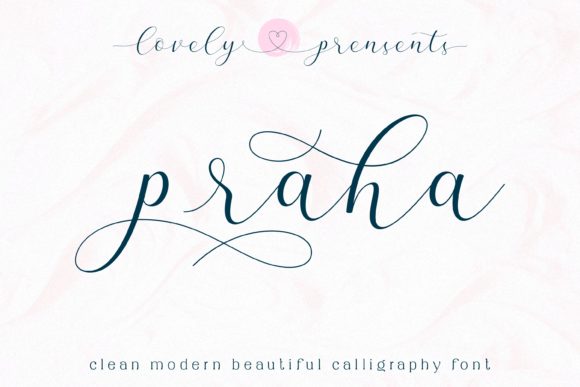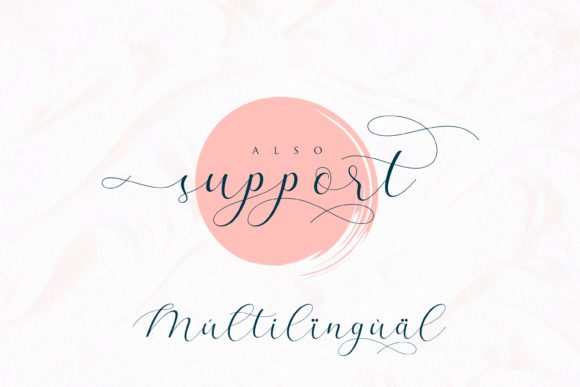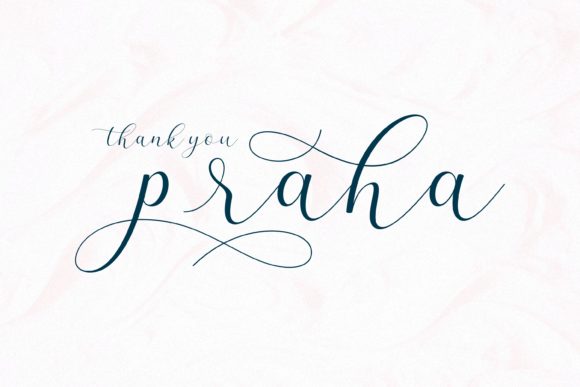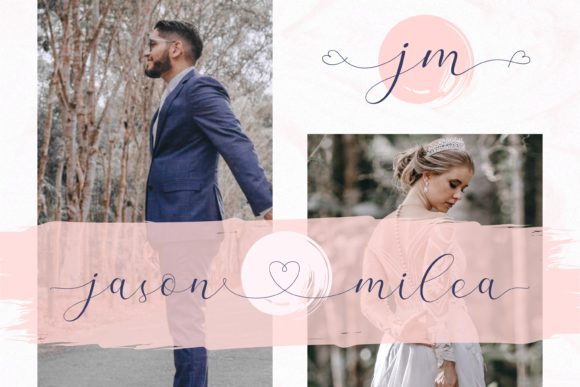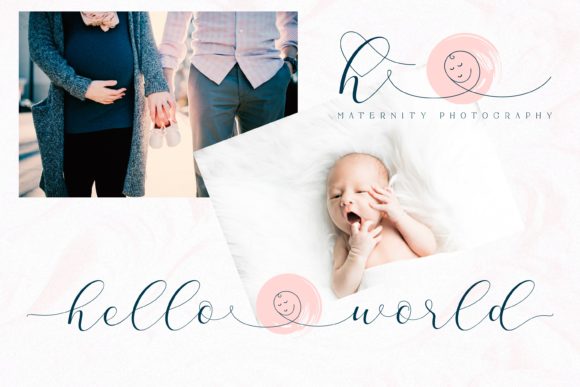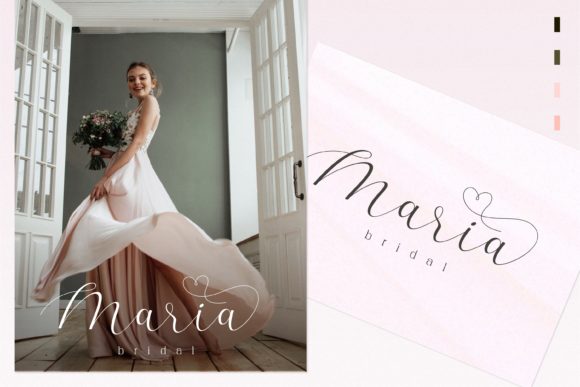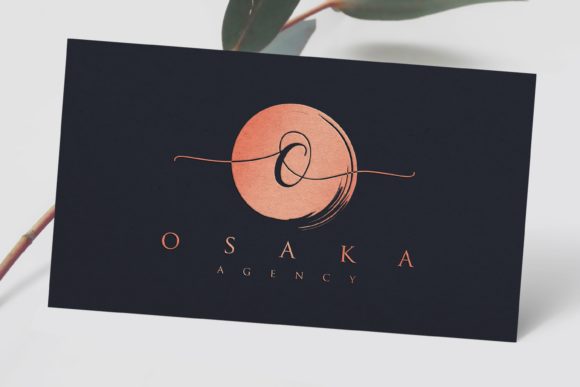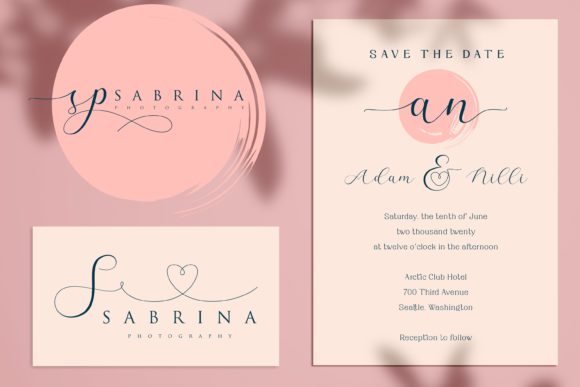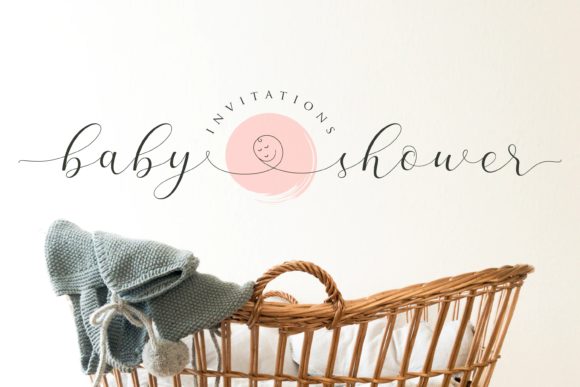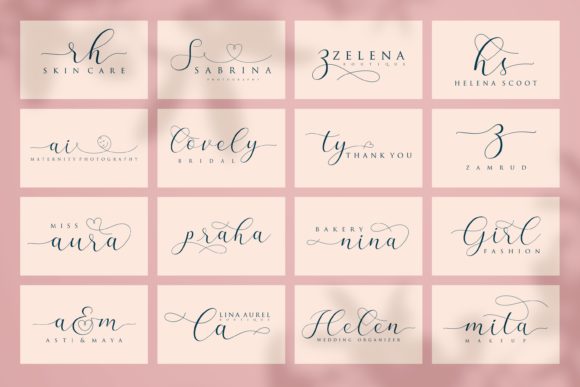
Praha Font
About Praha Font
Praha is elegant and sophisticated, but also whimsical. This versatile script font has a wide range of applications ranging from DIY projects to branding, and is guaranteed to add a wholesome touch to your next design.